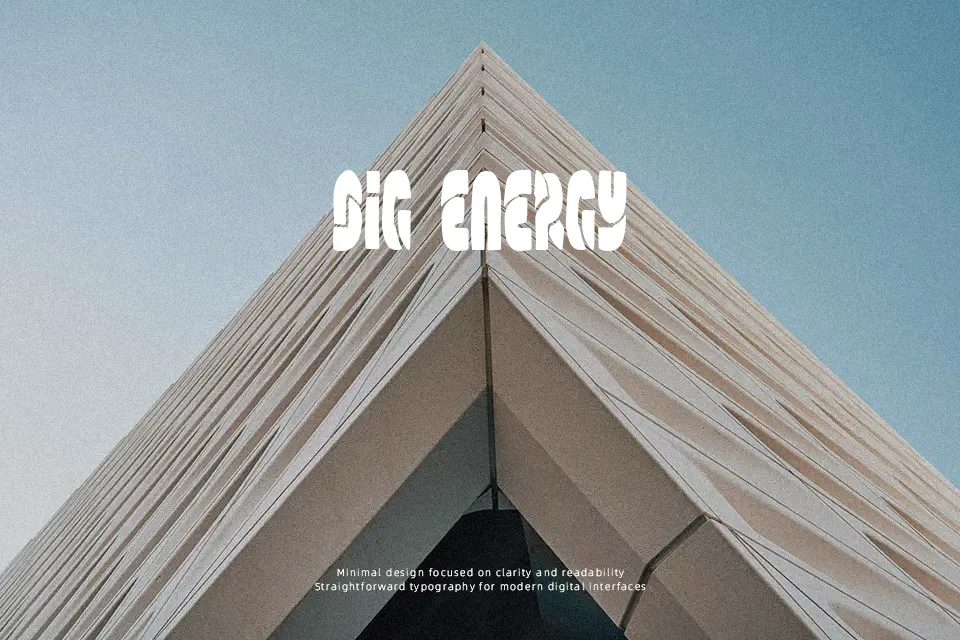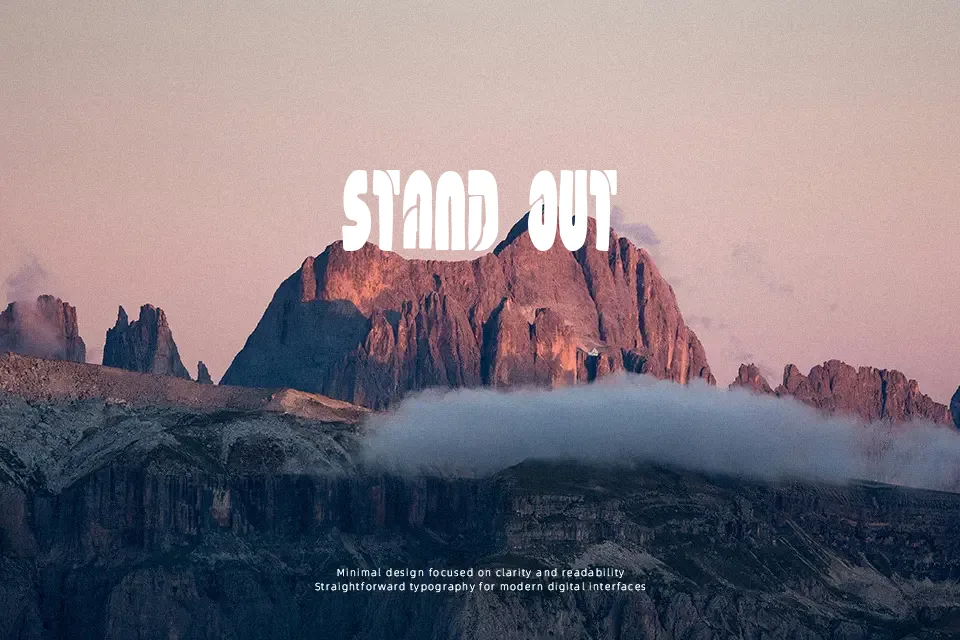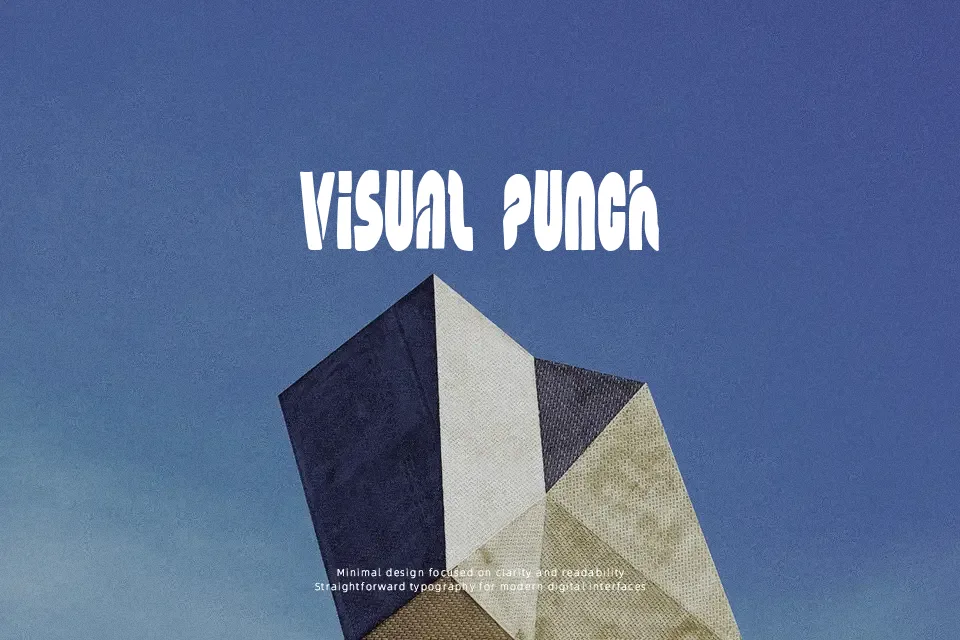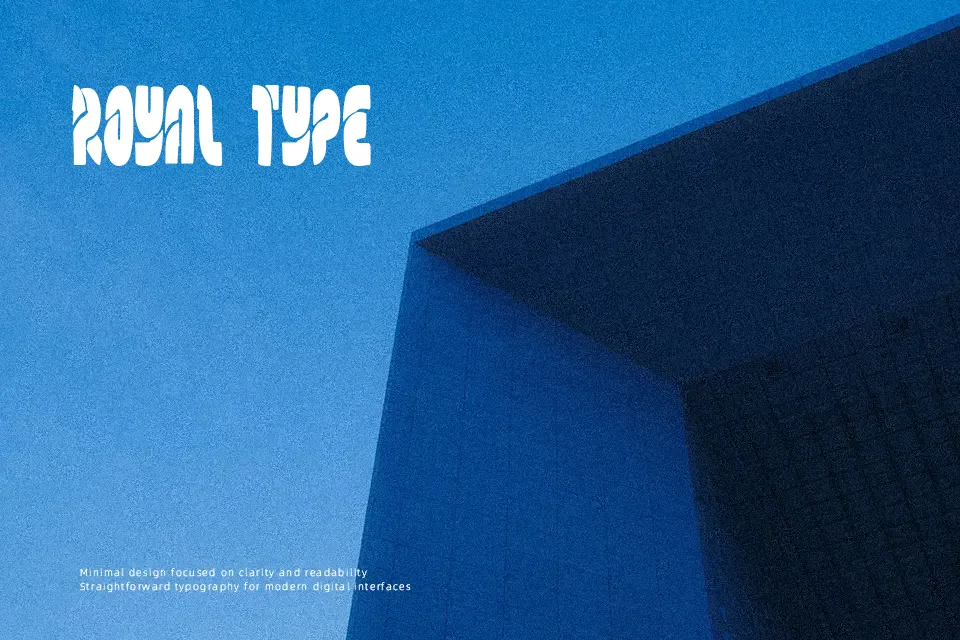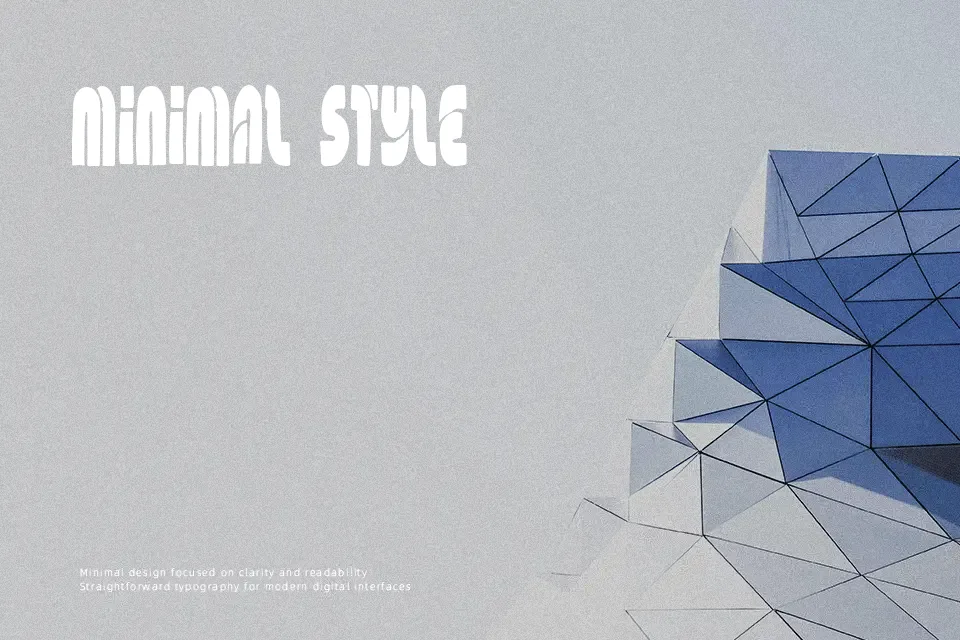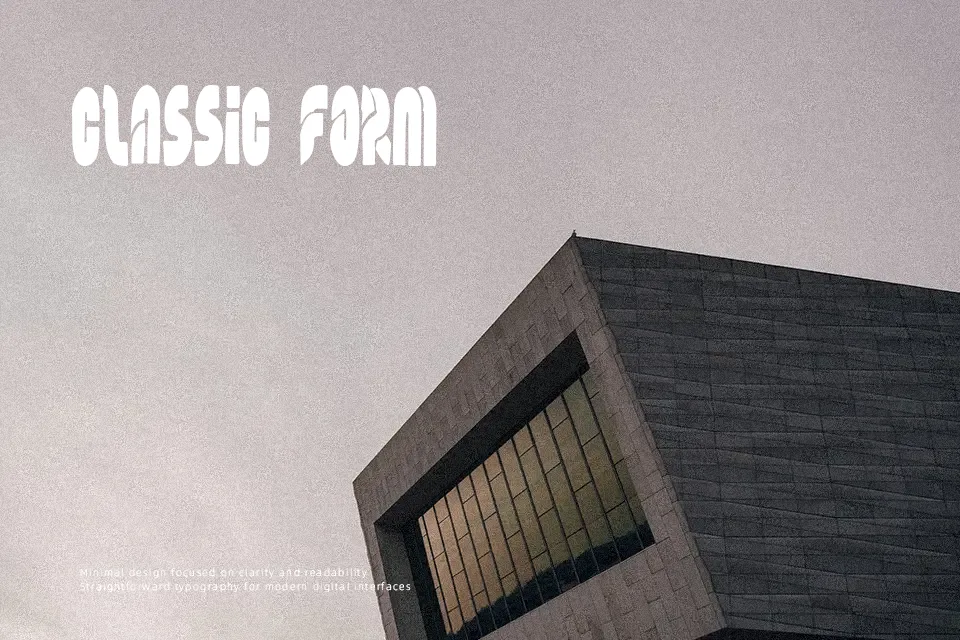
The Modern Family Empire Font
The Modern Family Empire Font introduces a heavy display structure defined by exaggerated strokes and condensed character silhouettes. Prominent weight distribution creates high visual presence, yet the tight letter spacing demands generous breathing room to avoid clashing in compact settings. Curved outer profiles contrast against compressed inner counters, lending the design an expressive retro rhythm. The letterforms remain easy to distinguish in short display text, though dense forms reduce comfort during extended reading. Use this typeface for bold hero headings or promotional merchandise graphics, keeping small captions and dense paragraphs off-limits to preserve clarity.
retro apparel graphics
album cover titles
merchandise packaging
Perfect for headline, logo, and music, with a bold and condensed style.